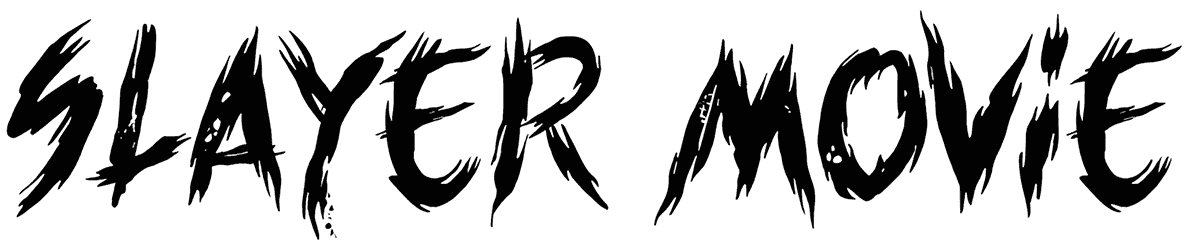
Slayer movie Font
The scary designs of the Slayer movie font, which is a fancy horror font, will have people talking about your project. This movie font may not include lowercase letters, but rest assured, it will do all in its power to m…
The scary designs of the Slayer movie font, which is a fancy horror font, will have people talking about your project. This movie font may not include lowercase letters, but rest assured, it will do all in its power to make your writing appear professional.
Especially applicable to branding, logos, posters, cards, and Halloween artwork. If you’re seeking to add some eerie atmosphere to your next project, RB’s selection of horror fonts is just what you need.